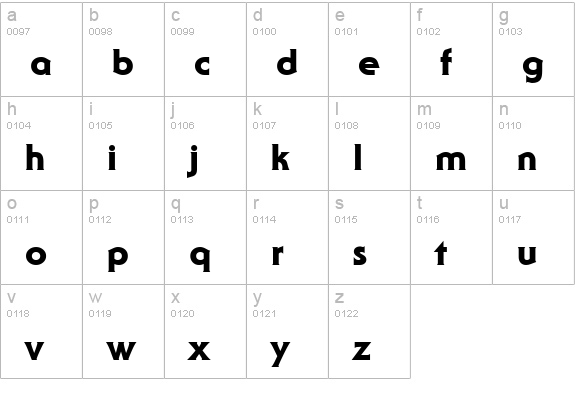
Staid Gothic Heavy Regular is a heavy, high-impact variant in the Staid typeface family \xE2\x80\x94 well suited to high-impact headlines, posters, and display advertising.
Staid Gothic Heavy Regular font is a bold and powerful typeface that exudes a sense of durability and authority. It is the perfect choice for projects that require a strong and commanding presence, such as headlines, logos, and branding materials. With its sharp edges and tall letterforms, Staid Gothic Heavy Regular font evokes a sense of timeless elegance mixed with a touch of modernity. Its clean lines and well-defined shapes make it highly legible, ensuring that your message will be communicated effectively to your audience. This font is not only visually striking but also versatile, making it suitable for a wide range of design applications. Whether you are working on a print project, a website, or even a video, Staid Gothic Heavy Regular font will bring a touch of sophistication and professionalism to your work. One of the best features of Staid Gothic Heavy Regular font is that it is available for free download at FontsMarket.com. This means that you can easily access and use this font in your projects without any additional cost. FontsMarket.com offers a wide selection of high-quality fonts, and Staid Gothic Heavy Regular font is just one of the many options available to you. So, if you are looking for a font that combines strength, elegance, and versatility, look no further than Staid Gothic Heavy Regular font. Download it for free at FontsMarket.com and bring a touch of timeless sophistication to your design projects.